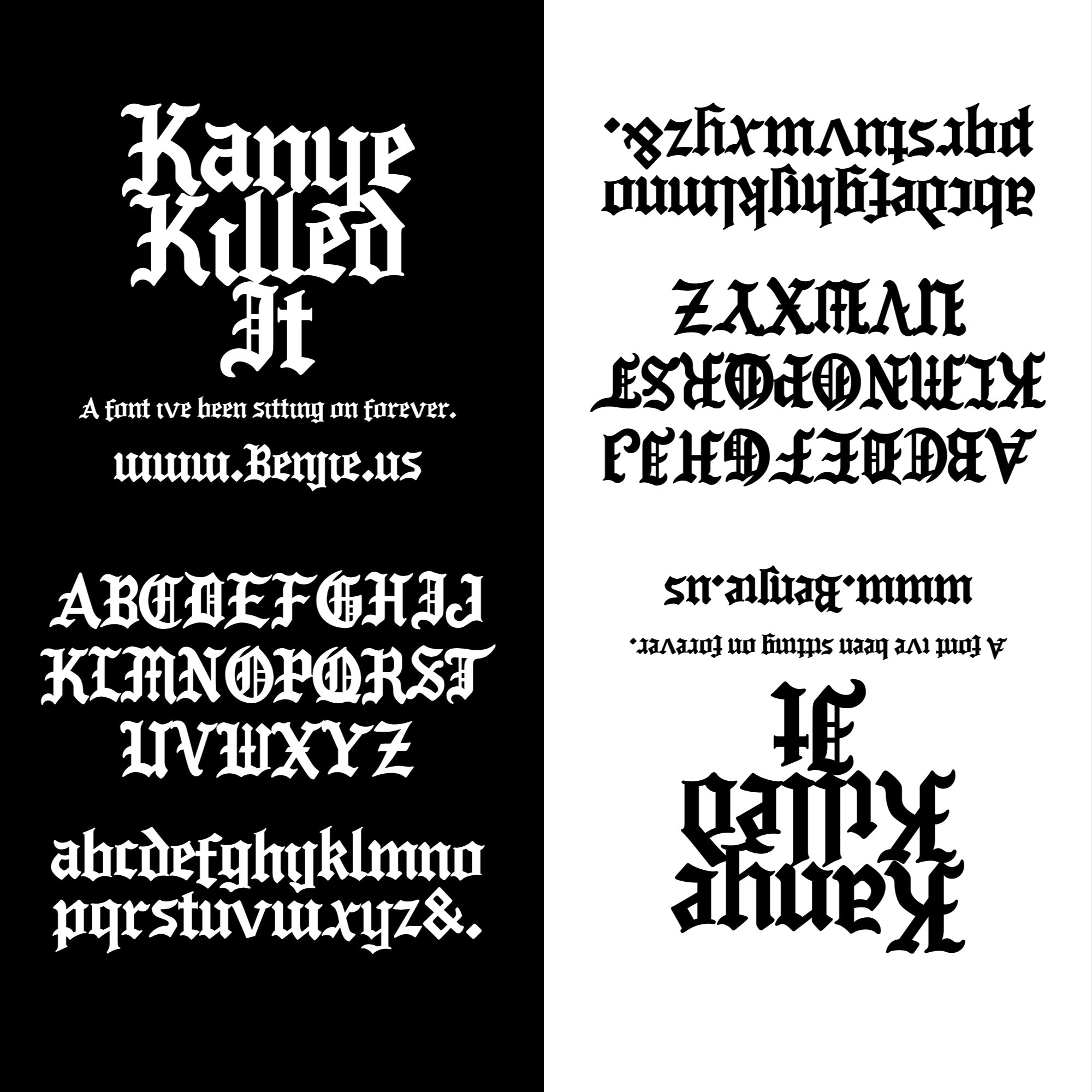
Kanye Killed it is based off 70's & 80's era iron on letters seen in swap meets, recently repopularized by Kanye Wests "I feel like Pablo" merchandise.